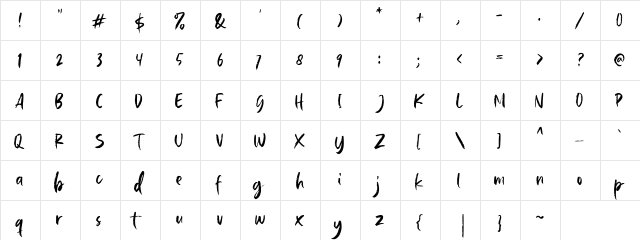
Baille Simpson DEMO Regular
| Foundry | Letterhend Studio |
| Designer | Sarid Ezra |
Design Context for Baille Simpson DEMO Typeface
Baille Simpson DEMO is a composed and adaptable typeface that performs quietly and consistently across a wide range of design contexts.